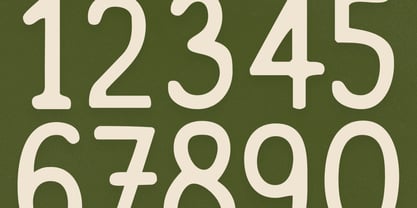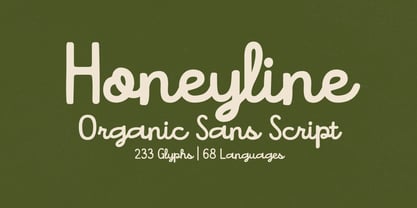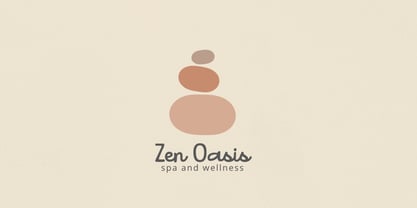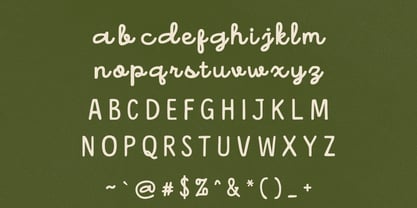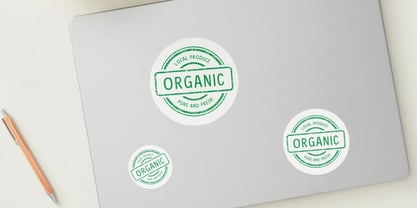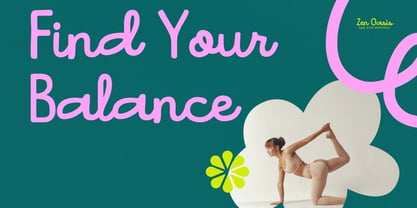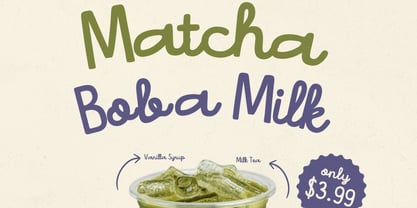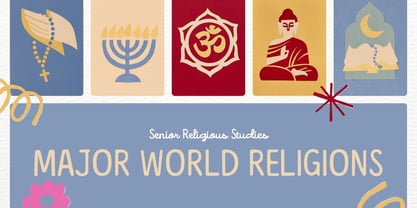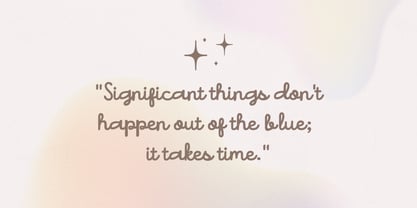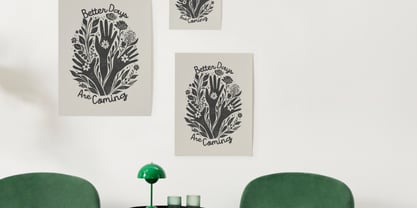
Honeyline
by Hipfonts
The Honeyline Font Family was designed by Igor Ovsyannykov and published by Hipfonts. Honeyline contains 1 styles.
Honeyline is a contemporary type duo that blends confident uppercase letters with an effortlessly handwritten lowercase, creating a warm and stylish flow perfect for modern branding. Designed to bring structure and softness into one seamless rhythm, Honeyline offers the perfect balance between bold clarity and relaxed personality. The uppercase set delivers strong, clean forms ideal for headlines, logos, packaging, storefronts, and editorials. Meanwhile, the handwritten lowercase adds a touch of casual elegance—making your designs feel authentic, approachable, and beautifully crafted. Whether you’re building a lifestyle brand, designing for beauty and wellness, creating social media content, or elevating hospitality visuals, Honeyline adapts effortlessly. Its natural contrast and fluid charm make it a reliable go-to font duo for designers seeking both polish and personality.
Designers: Igor Ovsyannykov
Publisher: Hipfonts
Foundry: Hipfonts
Design Owner: Hipfonts